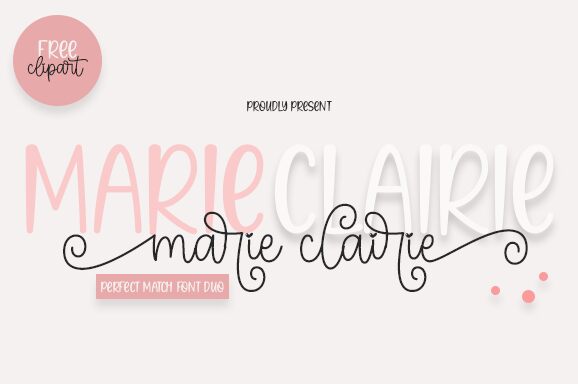
Marie Clairie Dspl, a delightful display font by Fillo Graphic, adds a whimsical handwritten touch to your projects. With its comic style and semi-condensed width, this font is perfect for creating eye-catching posters, playful book covers, and charming greeting cards. Let the quirky personality of Marie Clairie Dspl bring life to children's books, captivating logos, or even animated videos. Its unique blend of sophistication and playfulness is sure to make any design project stand out and leave a lasting impression on your audience.